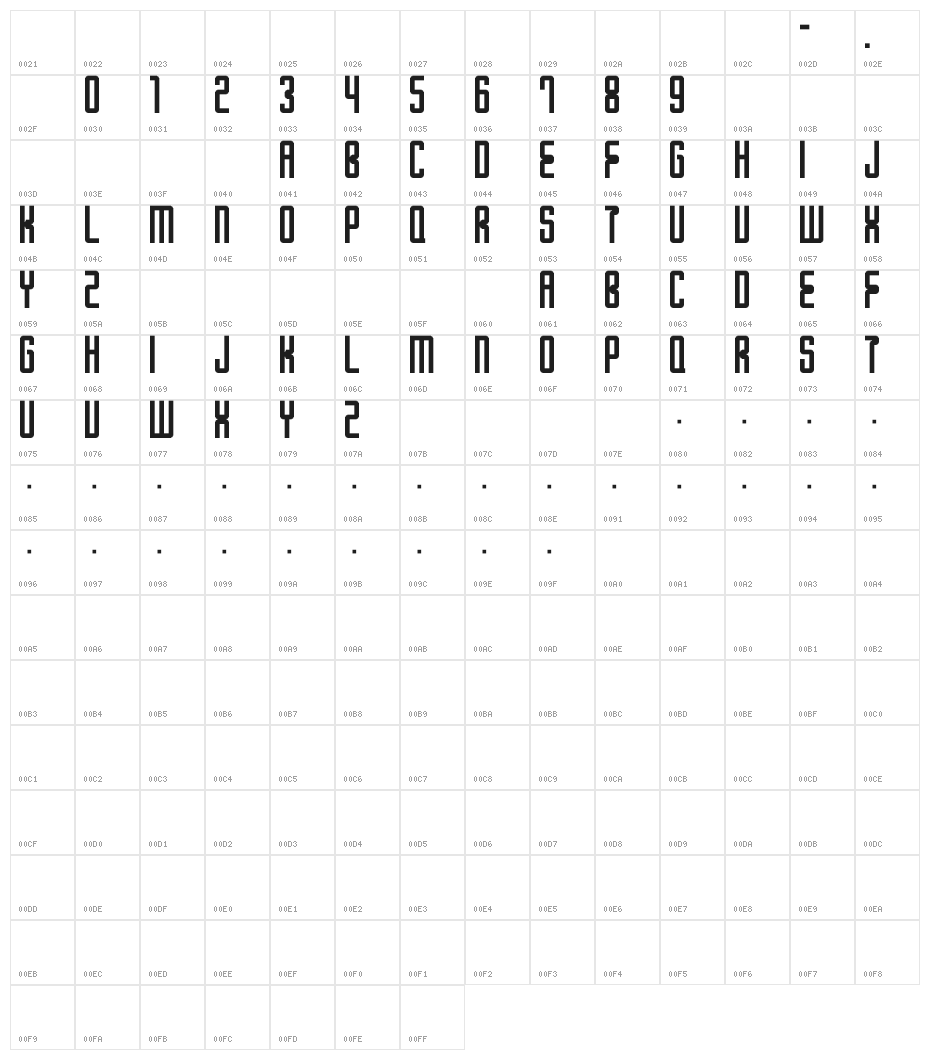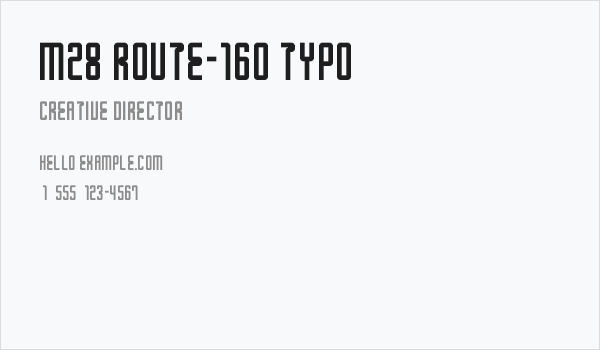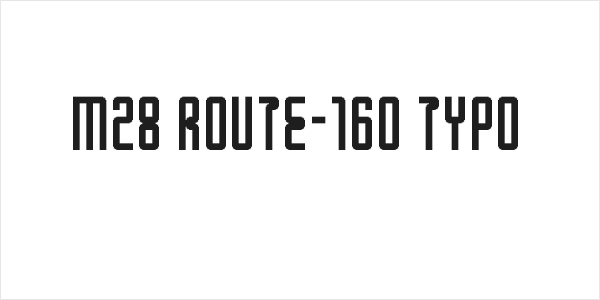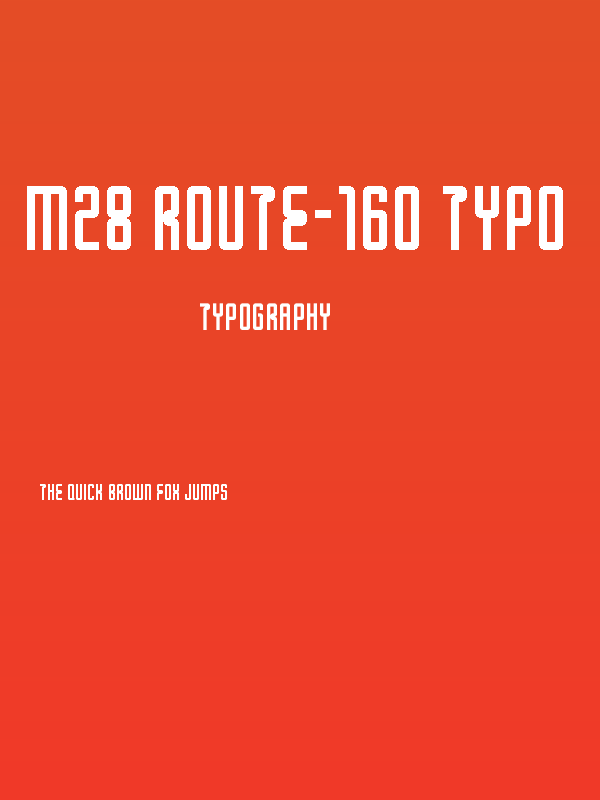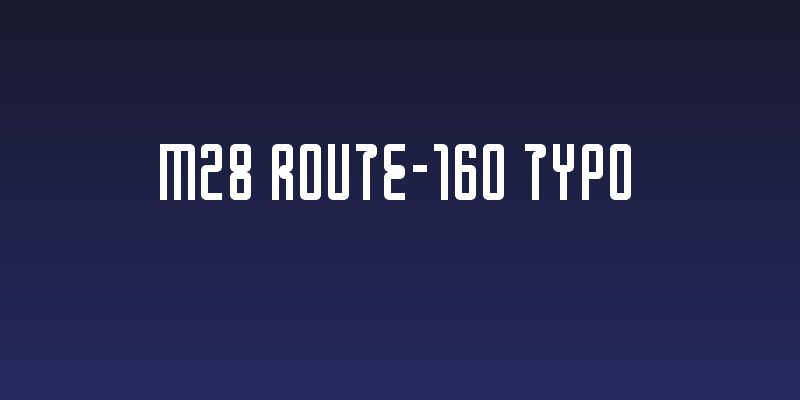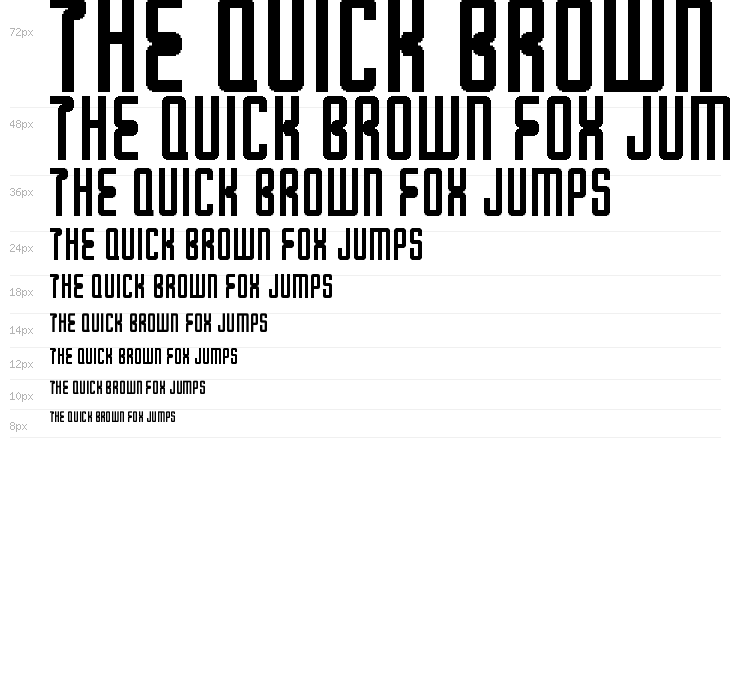
M28_ROUTE-160 TYPO Font
M28_ROUTE-160 TYPO Description
This font features a bold, geometric design with a strong, industrial feel. The characters are uniformly structured, with consistent vertical and horizontal strokes that create a sense of stability and strength. The uppercase letters are particularly striking, with their tall, narrow forms and squared-off edges. The numerals and punctuation maintain the same robust style, ensuring a cohesive look across all text. This font's design is both modern and retro, reminiscent of digital or mechanical displays.
| Use Case | Headlines, Logos, Signage |
| Proposed Projects | Ideal for use in digital displays, signage, branding for tech companies, or any project requiring a modern, industrial aesthetic. |